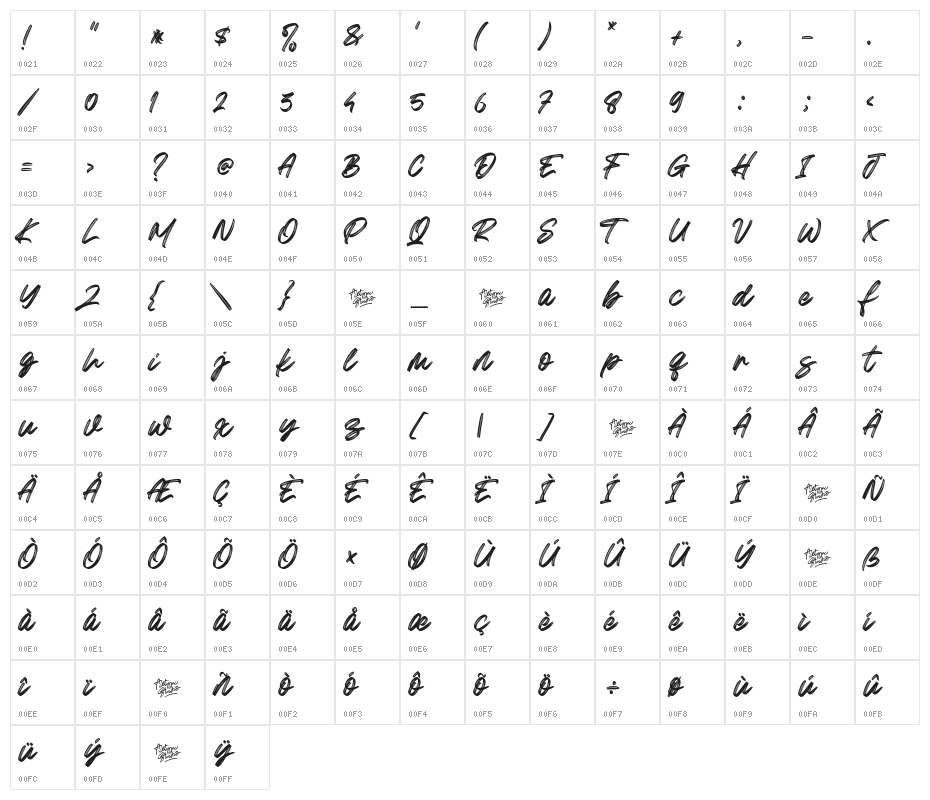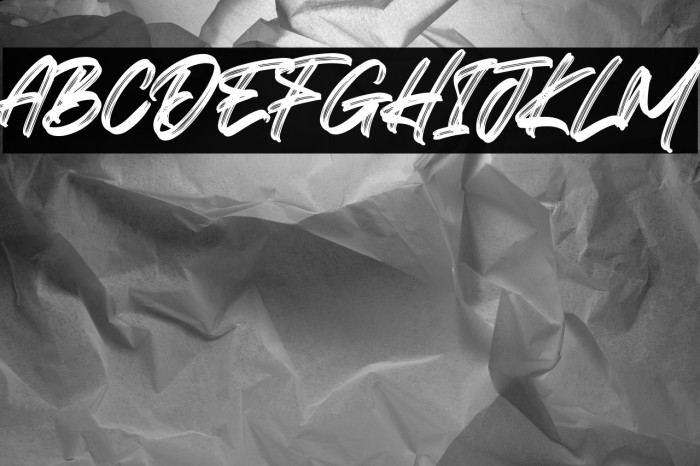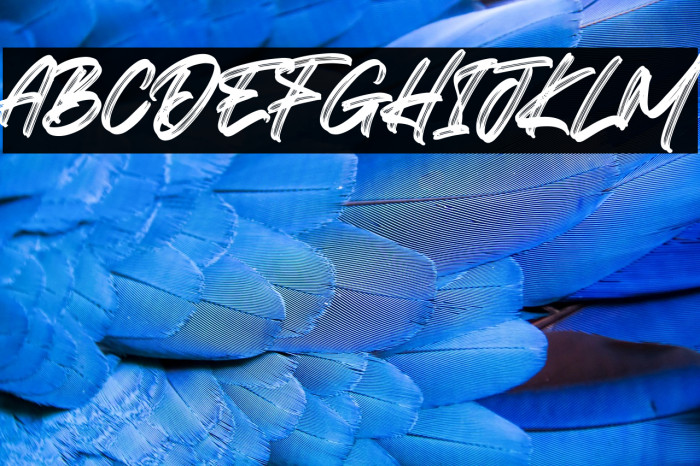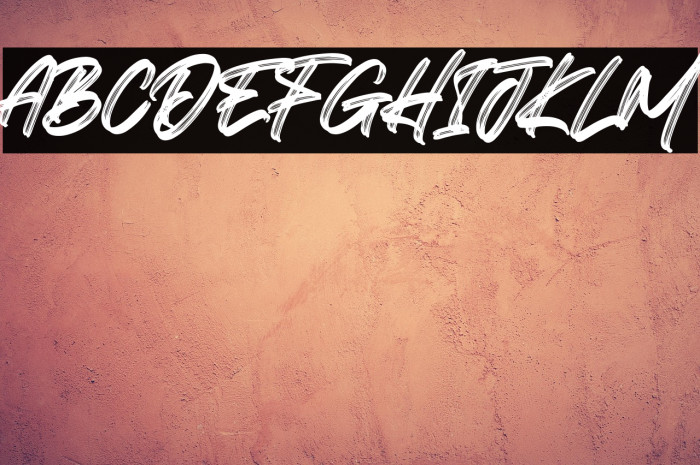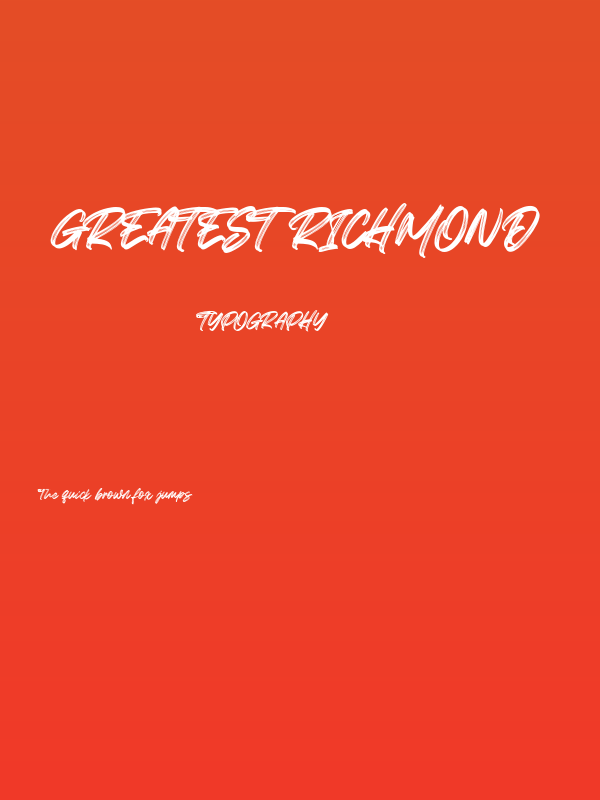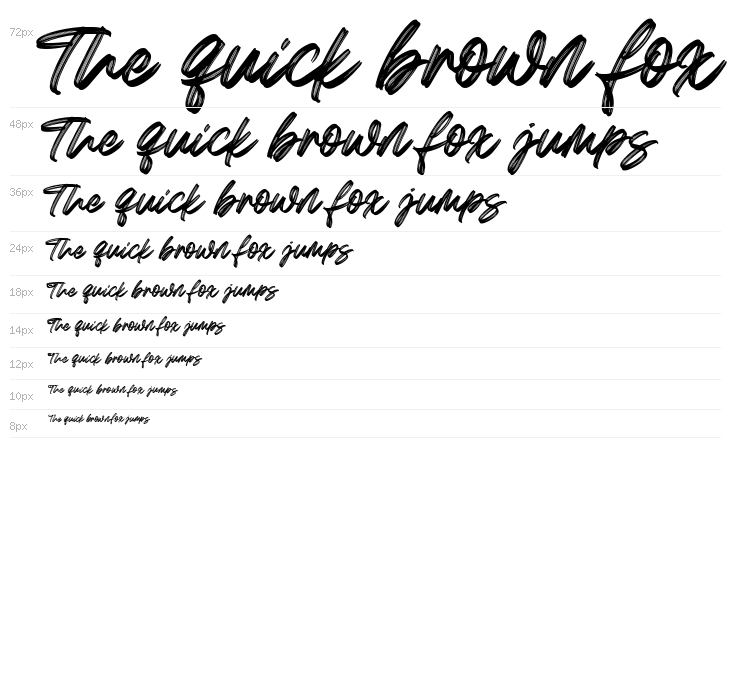
Greatest Richmond Font
Greatest Richmond Description
This font exudes a dynamic and energetic style, characterized by its bold and expressive strokes. Each letter appears hand-drawn, with a fluid and spontaneous feel that mimics natural handwriting. The uppercase and lowercase letters maintain a consistent style, with a slight slant that adds to the casual and informal appearance. The numbers and special characters are equally expressive, maintaining the same lively and artistic flair. This font is perfect for projects that require a personal touch, offering a sense of creativity and individuality.
| Proposed Projects | Ideal for branding, posters, invitations, and artistic projects that require a personal and creative touch. |